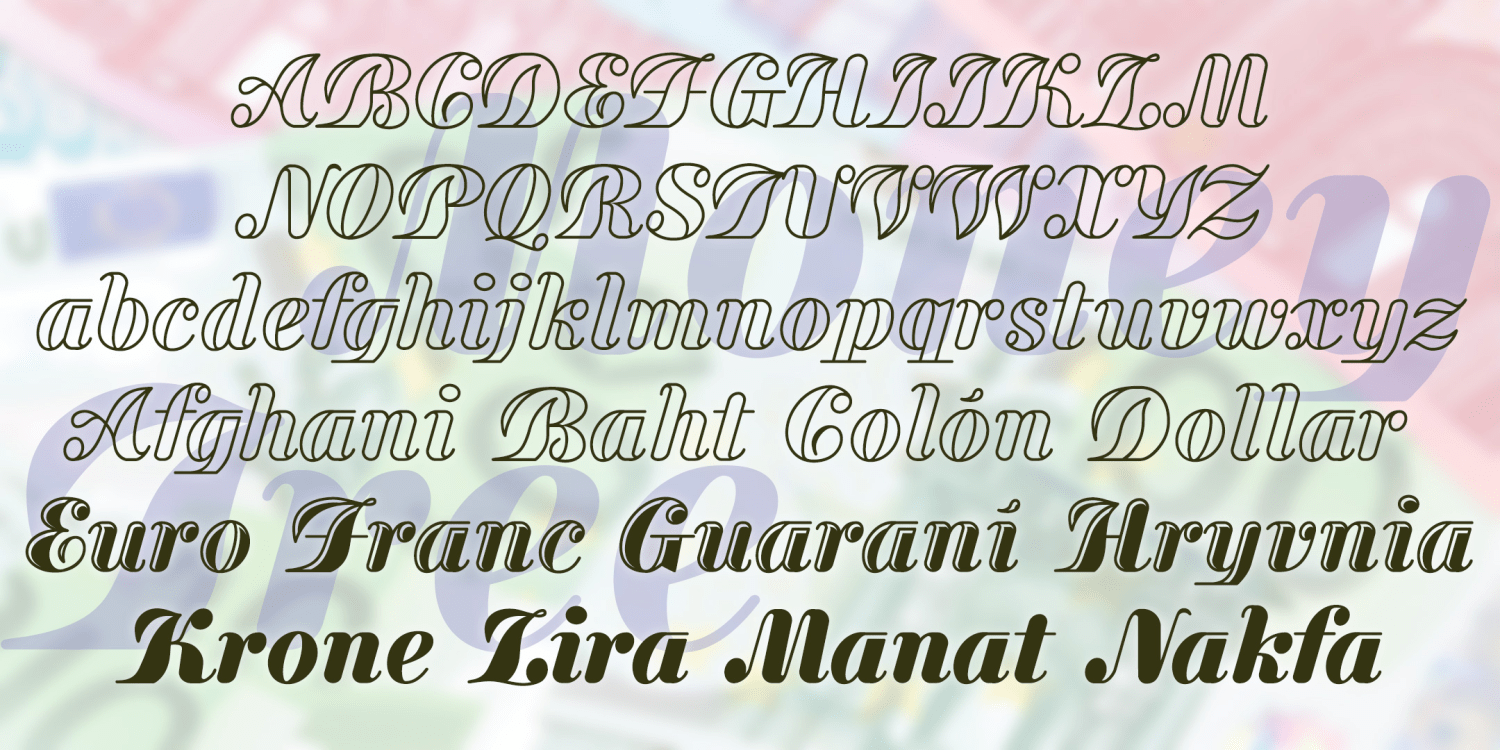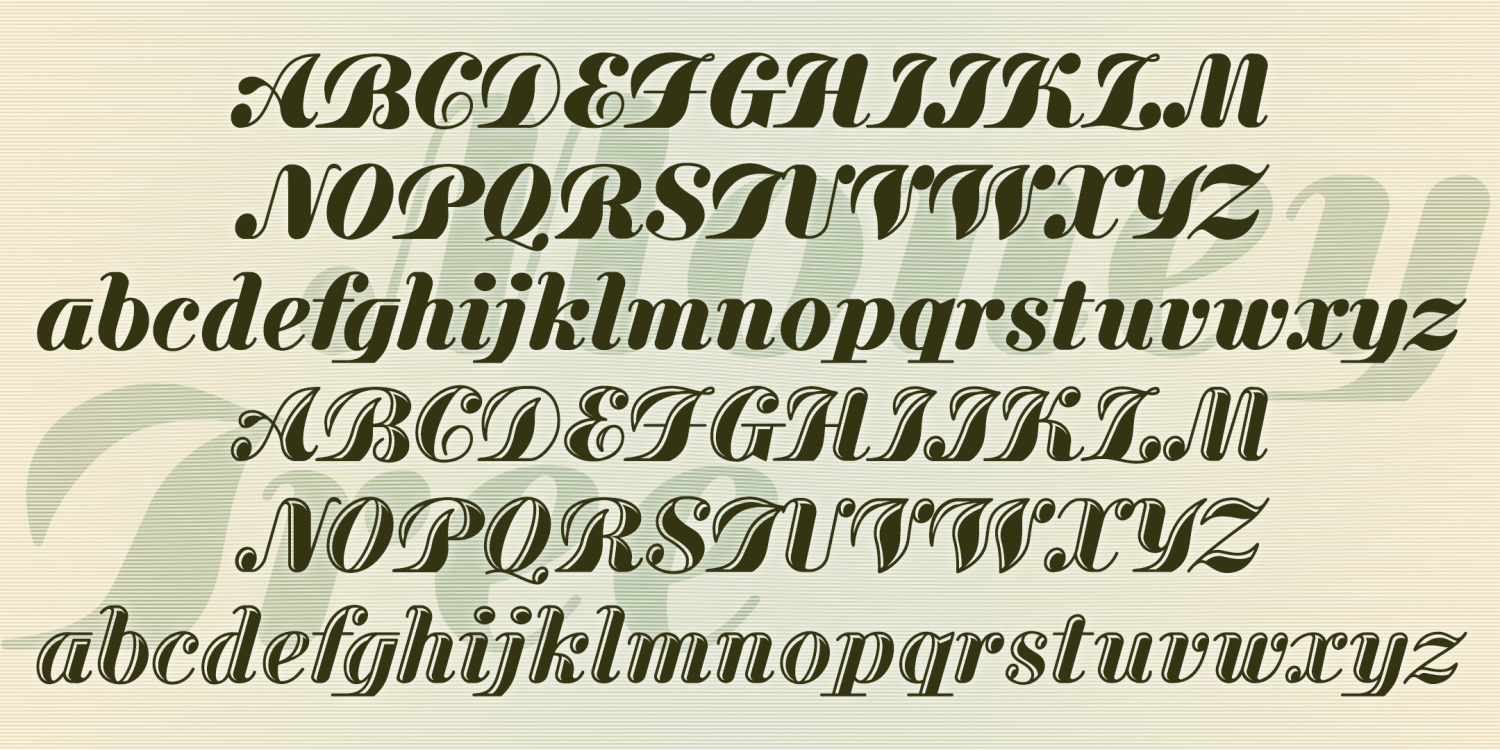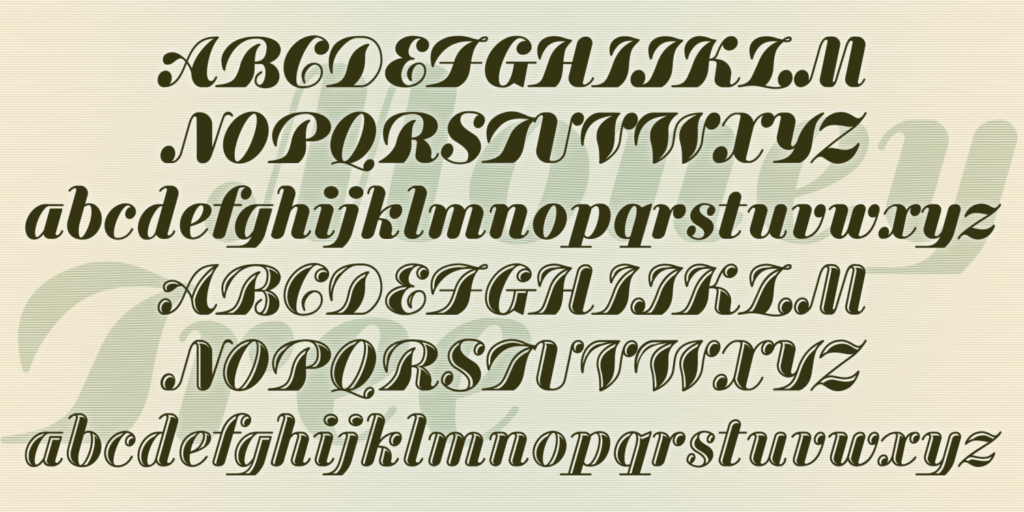
Money Tree
About Money Tree
MONEY TREE Is a bold and graceful font that mixes formality with forward motion, suggesting banknotes and stock certificates. Inspired by "Currency," an early 20th-century type by A. D. Farmer foundry, I've slightly modernized and expanded…